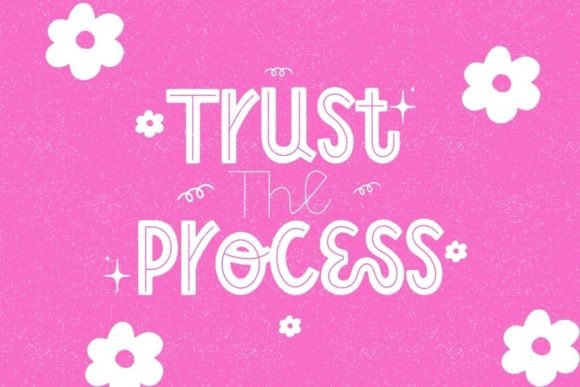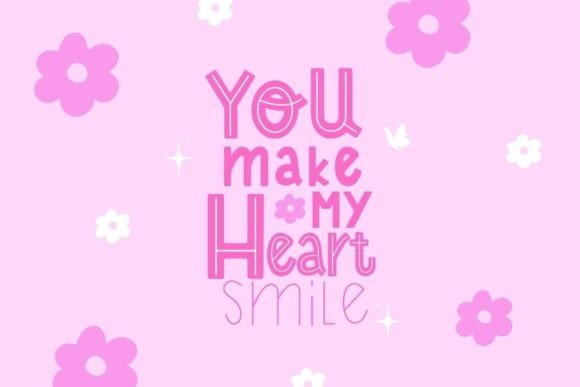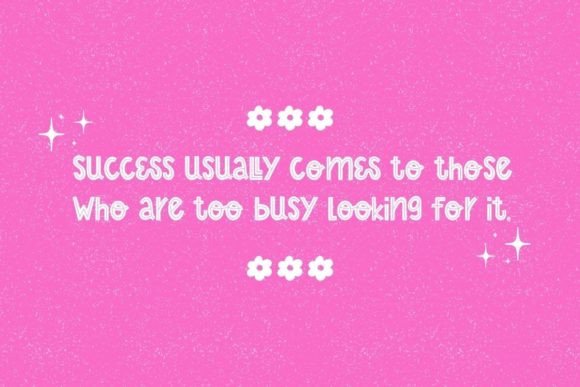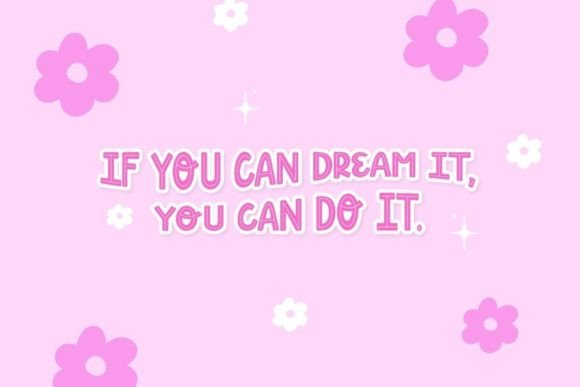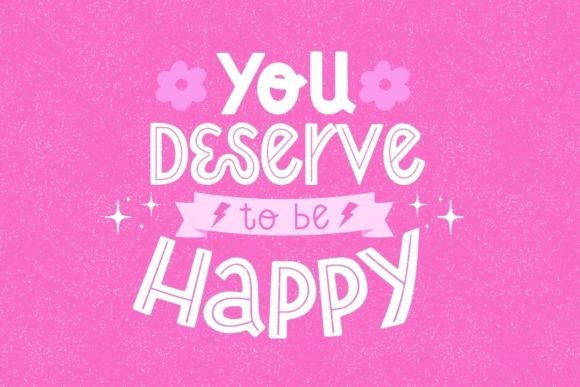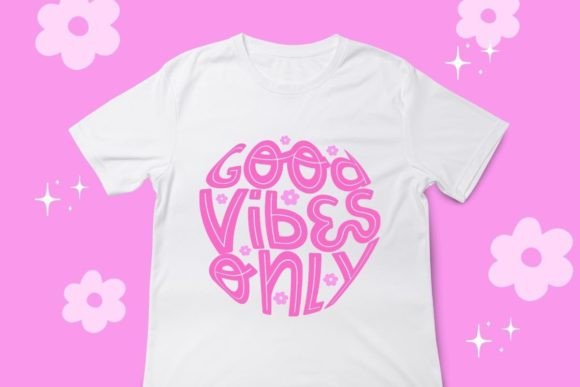
Good Vibes Only Font: Spread Positivity and Make a Statement
Have you ever stumbled upon the perfect font that just sparks an idea and propels you into a creative frenzy? For designers, finding the right font can be the difference between a mediocre project and a masterpiece. The “Good Vibes Only Font” is one such find that’s sure to get your creative juices flowing. With its unique characteristics and three versatile styles, this stylish and playful inline display font is the perfect addition to your design arsenal.
Whether you’re working on craft projects, designing birthday cards or invitations, or creating eye-catching T-shirt graphics, the “Good Vibes Only Font” has got you covered. Its handwriting-inspired charm adds a personal touch, while the playful inline style brings a sense of fun and vibrancy to your designs. Get ready to unleash your creativity and make a statement with this versatile font, perfectly suited for a variety of creative endeavors.
Good Vibes Only Font Key Features
- Font Family: A custom-designed sans-serif font, specifically created to evoke positive emotions and convey good vibes.
- Unique Characteristics: Features a distinctive rounded sans-serif design, with subtle rounded corners and a friendly, approachable feel.
Designer Review: Good Vibes Only Font
Overall, I have mixed feelings about the Good Vibes Only Font. On one hand, there are some lovely aspects to it, while on the other, there are some limitations that might hold it back.
- The font has a unique and playful vibe, perfect for projects that require a cheerful tone.
- The character set is comprehensive, making it suitable for a wide range of applications.
- The font’s curves and lines work well together to create a visually appealing aesthetic.
- The font’s readability at smaller font sizes could be improved.
- Some characters, such as the lowercase ‘a’ and ‘g’, can be difficult to distinguish from one another.
- The font’s stylistic nuances may not be suitable for formal or professional projects.
Overall, I think the Good Vibes Only Font is a fun and lighthearted choice, but it may not be the best option for every project. With some tweaks to address its limitations, it has the potential to become a great addition to any designer’s toolkit.
The Good Vibes Only font is ideal for creating fun and playful designs, such as social media graphics, posters, and flyers. It’s also great for adding a touch of personality to your branding and marketing materials. To get the most out of the font, use it in conjunction with bright and bold colors, and don’t be afraid to experiment with different font sizes and styles.